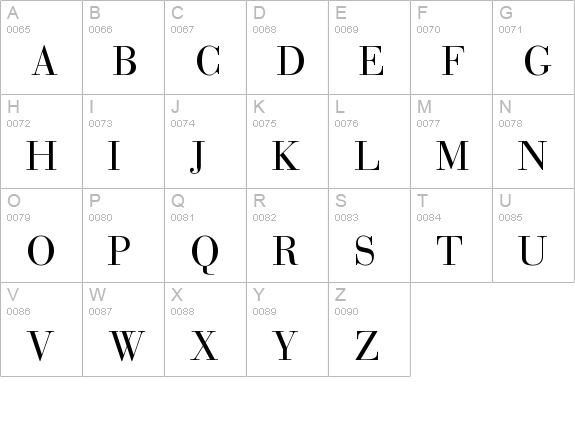
Bodoni Recut Condensed SSi Condensed Font Details
Bodoni Recut Condensed SSi Condensed is a distinctive, condensed-width variant in the Bodoni typeface family \xE2\x80\x94 well suited to design and typography projects.
Bodoni Recut Condensed SSi Condensed font is a timeless and elegant typeface that exudes sophistication and style. Its condensed design creates a sleek and modern look, making it perfect for projects that require a touch of refinement. With its sharp serifs and clean lines, Bodoni Recut Condensed SSi is a versatile font that can be used for a variety of design applications, from branding to editorial design. What sets this font apart is not only its classic appeal but also the fact that it is available for free download at FontsMarket.com. This means that you can easily access this high-quality typeface without any cost, making it a valuable addition to your font library. Whether you're working on a print project, website design, or any other creative endeavor, Bodoni Recut Condensed SSi Condensed font is sure to elevate your work with its timeless elegance and sophistication.